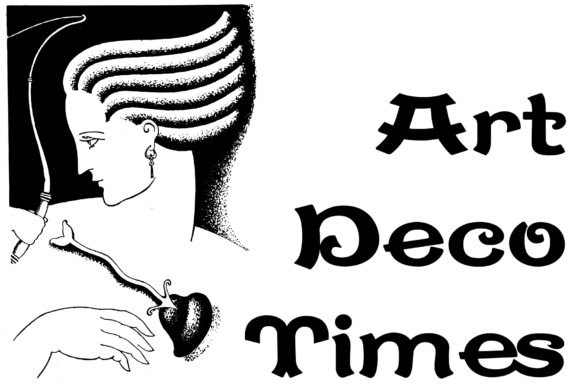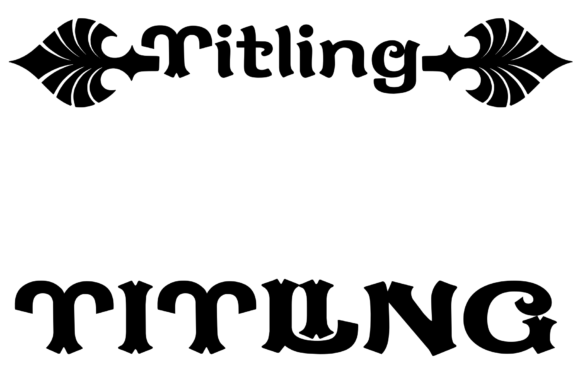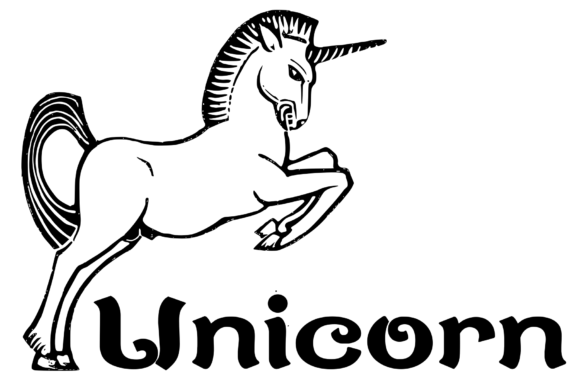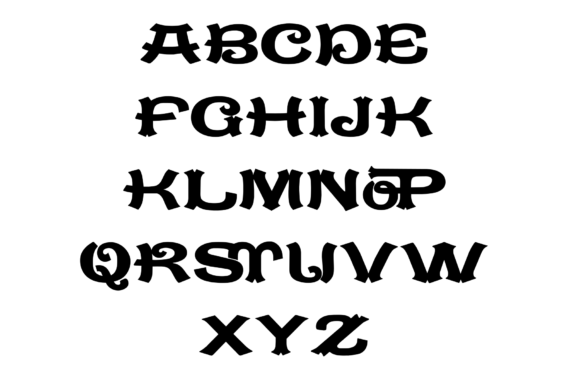
The Perfect Blend of Retro and Western: Caractere Doublet Font
Have you ever been working on a design project, pouring your heart and soul into it, and then suddenly, you need that one special element to take it to the next level? That’s when the magic happens, and you stumble upon the perfect font. For designers, finding the right font can be the difference between a good design and a great one. And that’s exactly where the Caractere Doublet Font comes in – a masterfully designed retro and Western font family that’s sure to elevate your creative ideas.
With its unique blend of retro and Western styles, the Caractere Doublet Font is perfect for adding that special touch to any design idea you can think of. Whether you’re working on a logo, a poster, or a brochure, this font is sure to bring a level of sophistication and elegance that will leave a lasting impression. As a valuable addition to any designer’s toolkit, the Caractere Doublet Font is a must-have for anyone looking to take their designs to the next level.
Caractere Doublet Font Key Features
- Unique Characteristics: Caractere Doublet Font features a distinctive double-story ‘g’ and ‘q’ design, which adds a touch of elegance and sophistication to any text.
Caractere Doublet Font Review
Overall, I think the Caractere Doublet Font is a beautiful and elegant choice for designers. ✨ Its unique blend of modern and vintage elements makes it a great fit for projects that need to convey sophistication and refinement. I particularly appreciate the way the font’s lines and curves seem to dance together in a harmonious balance.
Here are some of the things I like about this font: ✨
- Uniqueness: The Caractere Doublet Font is not a common choice, which makes it stand out from the usual suspects.
- Legibility: The font is incredibly easy to read, even at smaller sizes.
- Expressiveness: The font seems to have a personality of its own, which makes it a great choice for projects that need to convey emotion or attitude.
That being said, there are a few things that might give designers pause: ⚠️
- Limited support: The font may not be compatible with every system or software, which could lead to compatibility issues.
- No bold or italic variants: While the font is beautiful in its standard form, the lack of bold or italic variants might limit its versatility.
Overall, I think the Caractere Doublet Font is a great choice for designers who want to add a touch of elegance and sophistication to their projects. With a little caution and planning, it can be a real showstopper.
Caractere Doublet Font is ideal for:
1. Vintage or retro-themed designs.
2. Book covers or book titles.
3. Posters or advertisements with a classic feel.
4. Branding or logos with a unique, distinctive look.
To get the most out of Caractere Doublet Font, try:
1. Combining it with other vintage or distressed fonts for a unique look.
2. Adjusting the font size and style to create contrast and visual interest.
3. Using it in conjunction with bold or italic text for emphasis.
Alternatives to Caractere Doublet Font
Playfair Display is a luxurious and elegant serif font. It is ideal for creating a sophisticated and high-end design, such as luxury brands, fashion magazines, or wedding invitations. This font is similar to Caractere Doublet Font in its classic and refined feel, but it has a more ornate and detailed design.